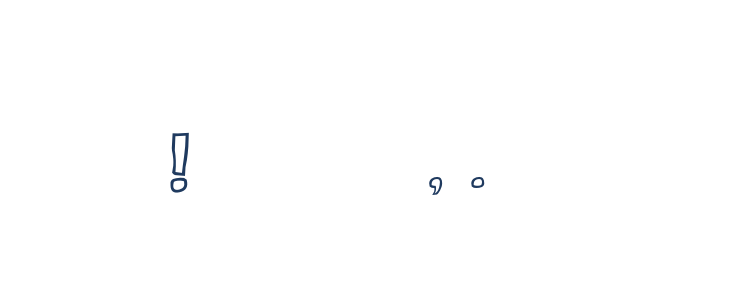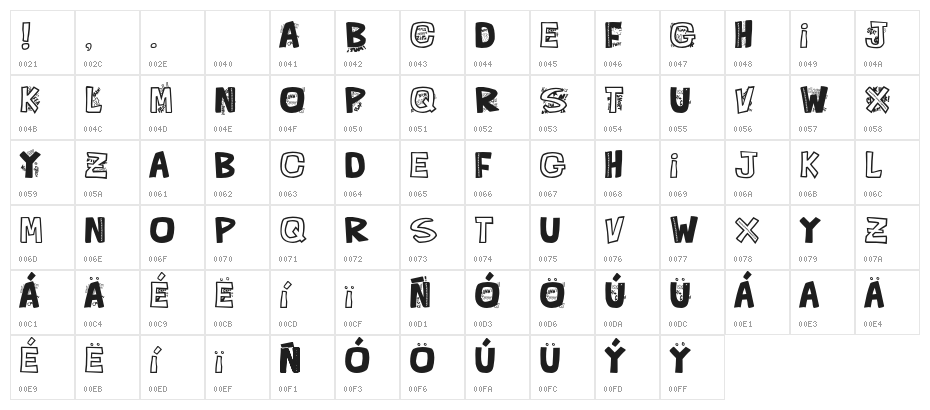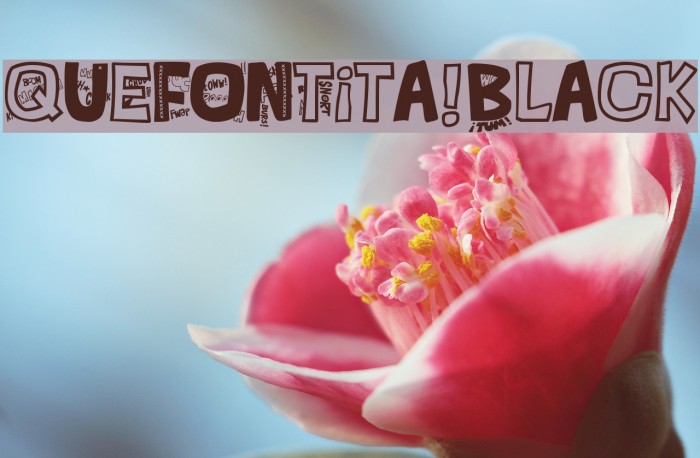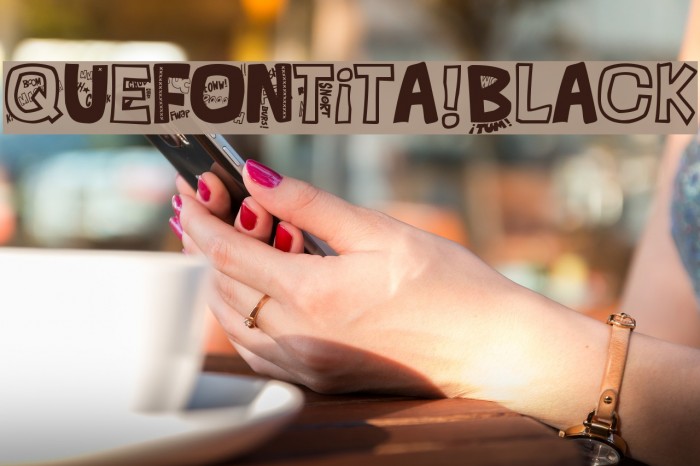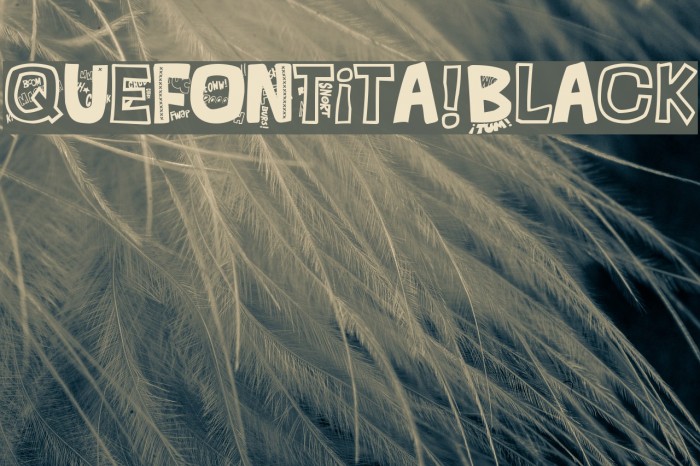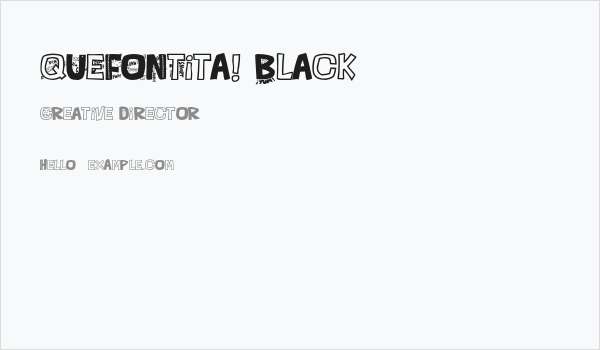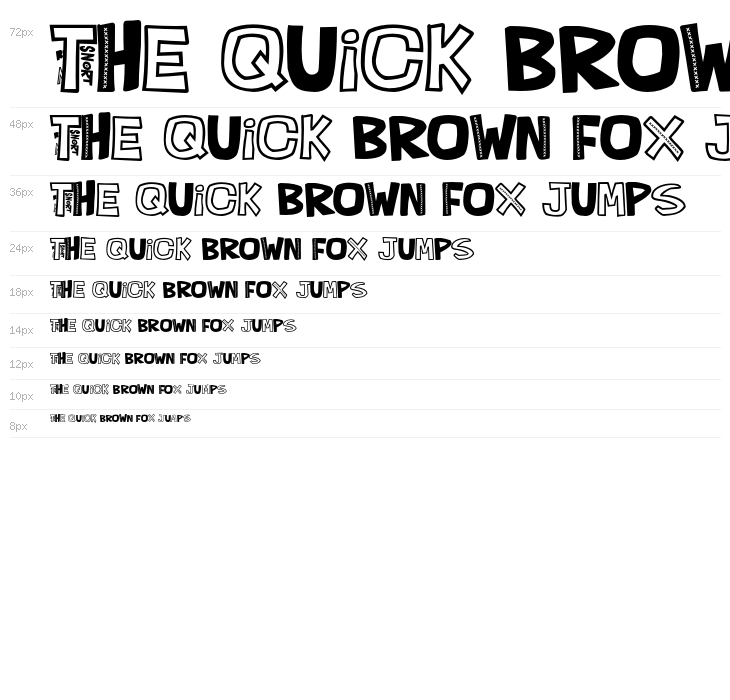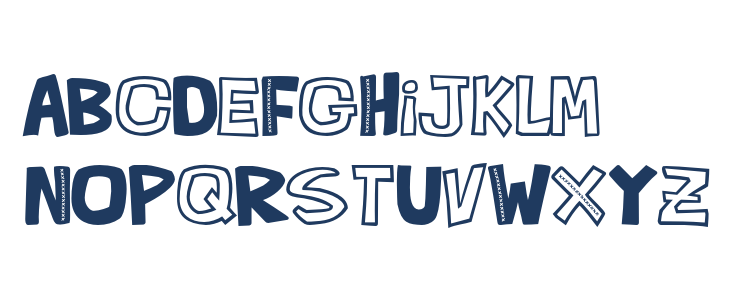
QUEFONTita!-Black Font
QUEFONTita!-Black Description
This playful and bold font features a comic book style with a hand-drawn appearance. Each character is uniquely designed with varying thickness and quirky details, giving it a dynamic and energetic feel. The uppercase letters are particularly striking, with some letters filled with patterns or textures, adding to the font's whimsical nature. The lowercase letters maintain a similar style, ensuring consistency throughout. The font's overall look is reminiscent of classic comic book lettering, making it ideal for projects that require a fun and engaging typeface.
| Overall Style | Playful, Comic, Hand-drawn |
| Proposed Projects | Ideal for comic books, children's books, playful posters, and creative branding projects. |